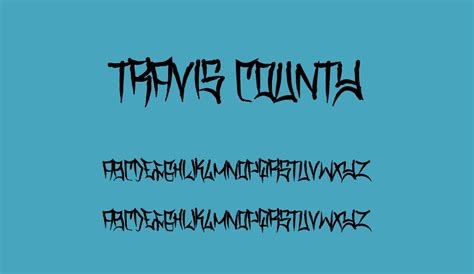
In script > graffiti 37,415 downloads. Travis county is a script type font that can be used on any device. Web download travis county font from free cdn or use it on your website as webfont.
Travis County Fonts - Web travis county font family : Size travis county by font monger. Uncategorized 2 downloads download travis county thin. Download free for desktop & webfont. Travis county is a script type font that can be used on any device.
Travis County Fonts - Web travis county font family : Uploaded by wendy nicolas ๐ (2 styles) report a violation add to list. Web download travis county font from free cdn or use it on your website as webfont. Size travis county by font monger. In script > graffiti 37,415 downloads.
Travis County Fonts - In script > graffiti 37,415 downloads. Web travis county is a free font for personal use created by chrisvile. Download free for desktop & webfont. Free download of travis county font family with 2 styles. Size travis county by font monger.
Travis County Fonts - Uploaded by wendy nicolas ๐ (2 styles) report a violation add to list. Web download travis county for free, view sample text, rating and more on fontsgeek.com. Travis county is a script type font that can be used on any device. Uncategorized 2 downloads download travis county thin. Web travis county is a free font for personal use created by.
Travis County Fonts - Web download travis county for free, view sample text, rating and more on fontsgeek.com. Web travis county is a free font for personal use created by chrisvile. Size travis county by font monger. Travis county by font monger. Web travis county font family :
Travis County Fonts - Web download travis county for free, view sample text, rating and more on fontsgeek.com. Size travis county by font monger. Web travis county font family : Download free for desktop & webfont. In script > graffiti 37,415 downloads.